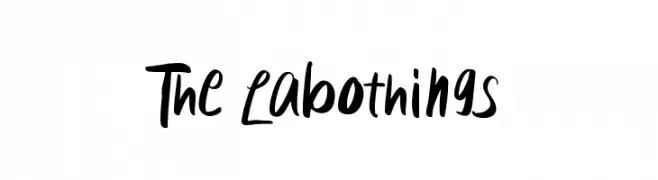
A bold, expressive handwritten font with fluid strokes and dynamic curves.
A playful handwritten font with fluid, dynamic strokes and a casual vibe.
A bold, decorative font with a retro halftone pattern, perfect for eye-catching designs.
A playful, hand-drawn font with bold, rounded strokes and an outlined, hollow effect.
A whimsical and decorative font with each character represented by a unique object or character.
A bold, dripping graffiti-style font with a rebellious edge.
A cursive, handwritten font with elegant, flowing strokes and medium contrast.